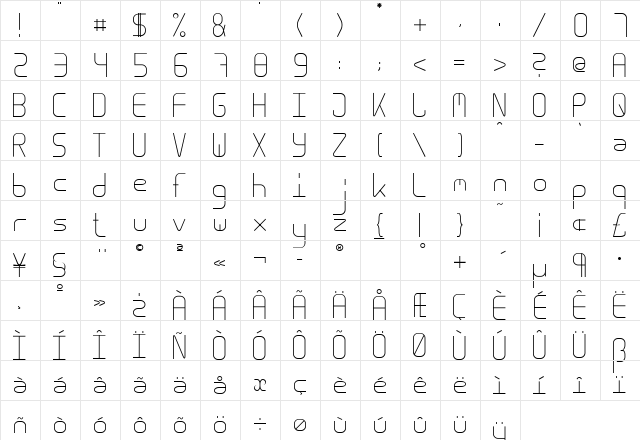
Across The Stars Regular
Design Context for Across The Stars Typeface
Across The Stars is a composed and adaptable typeface that performs quietly and consistently across a wide range of design contexts.